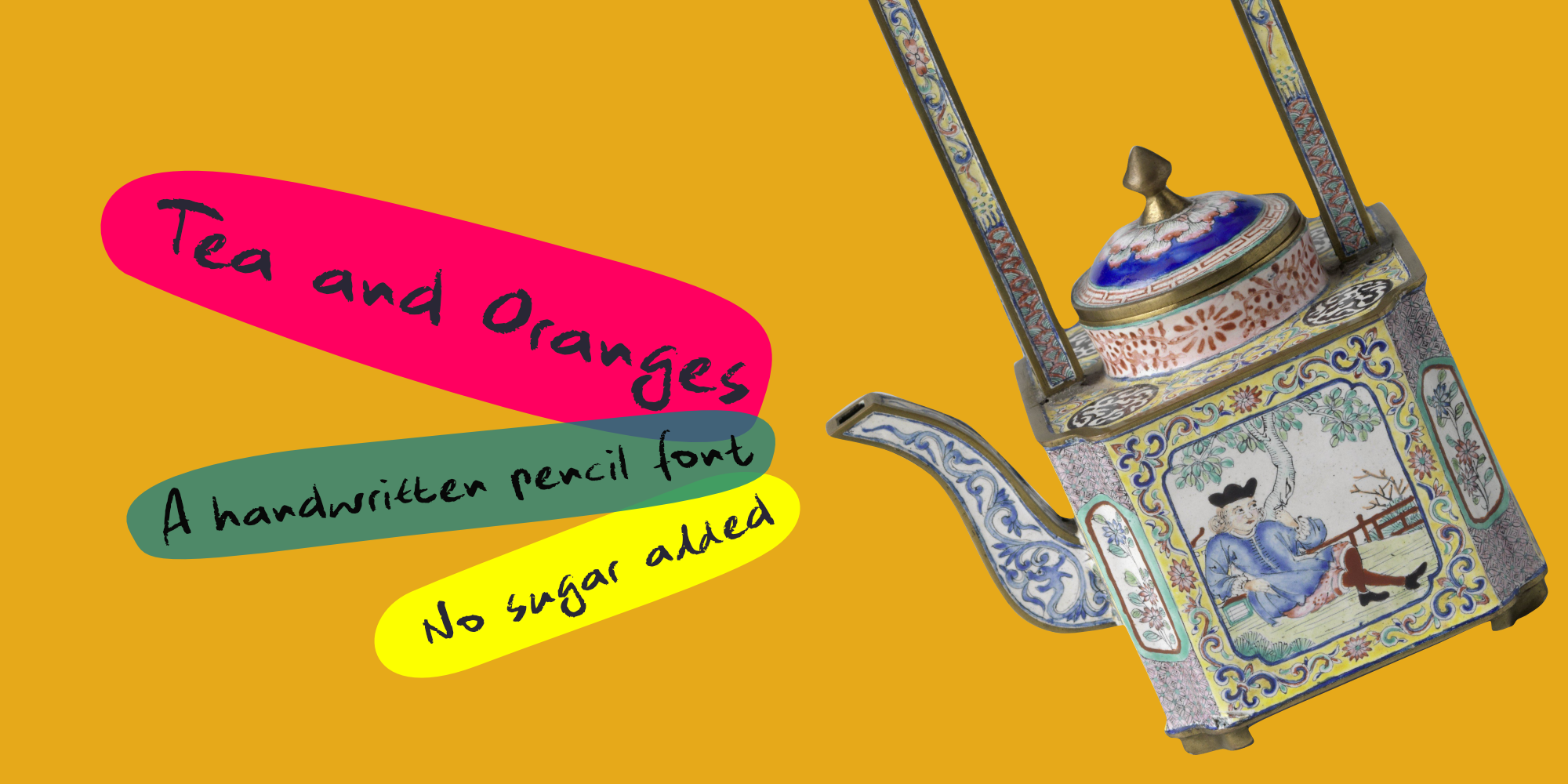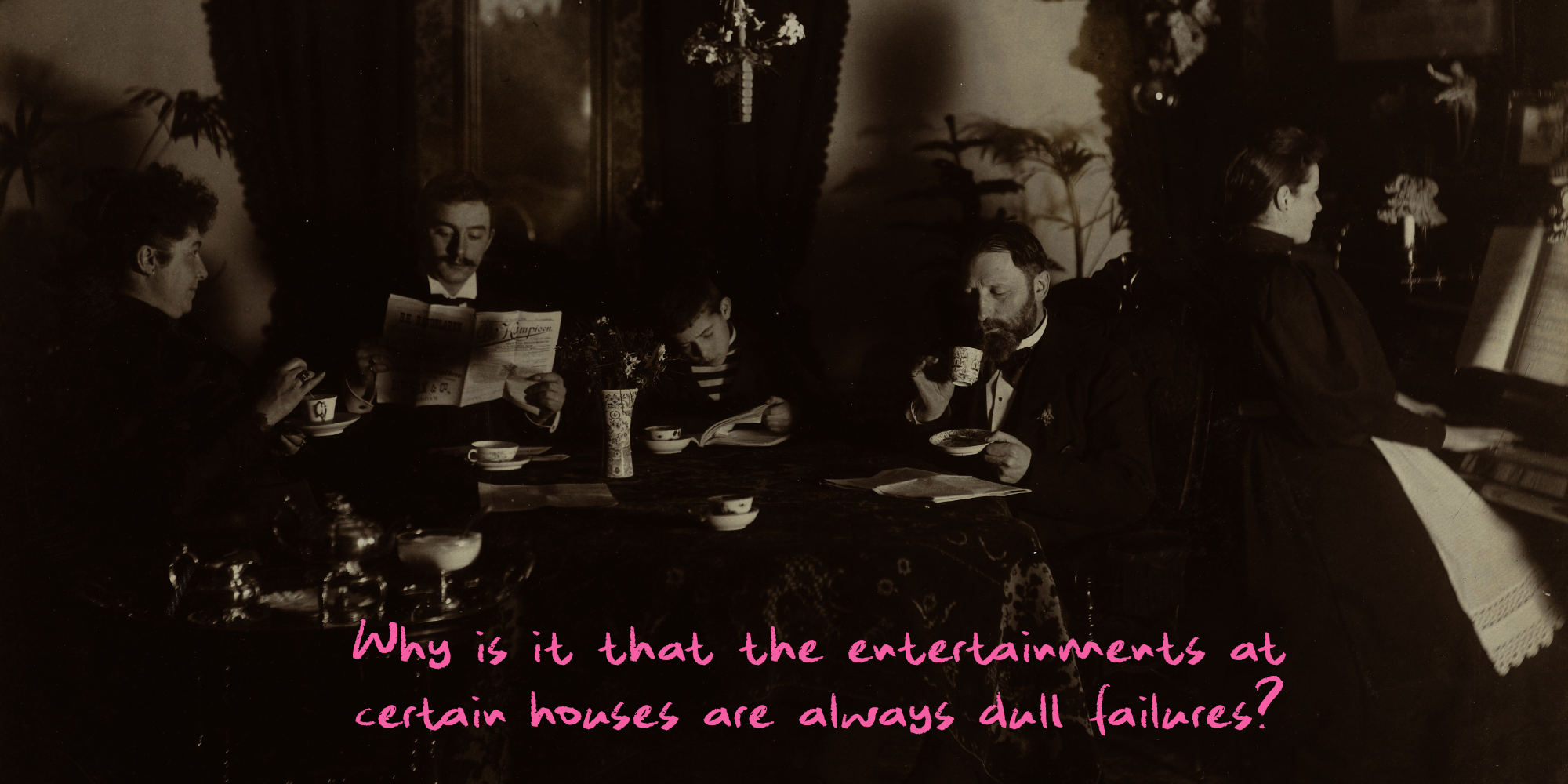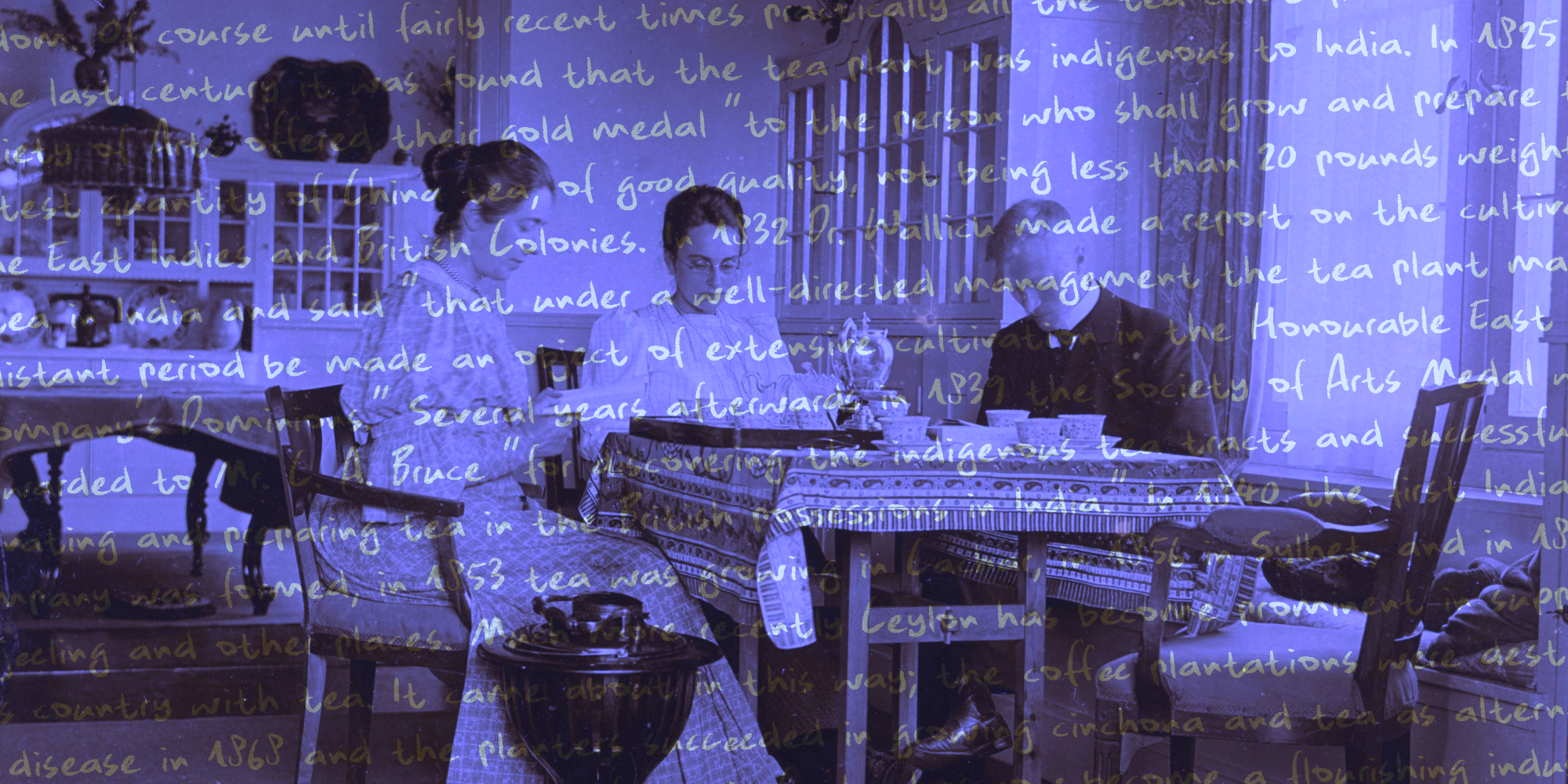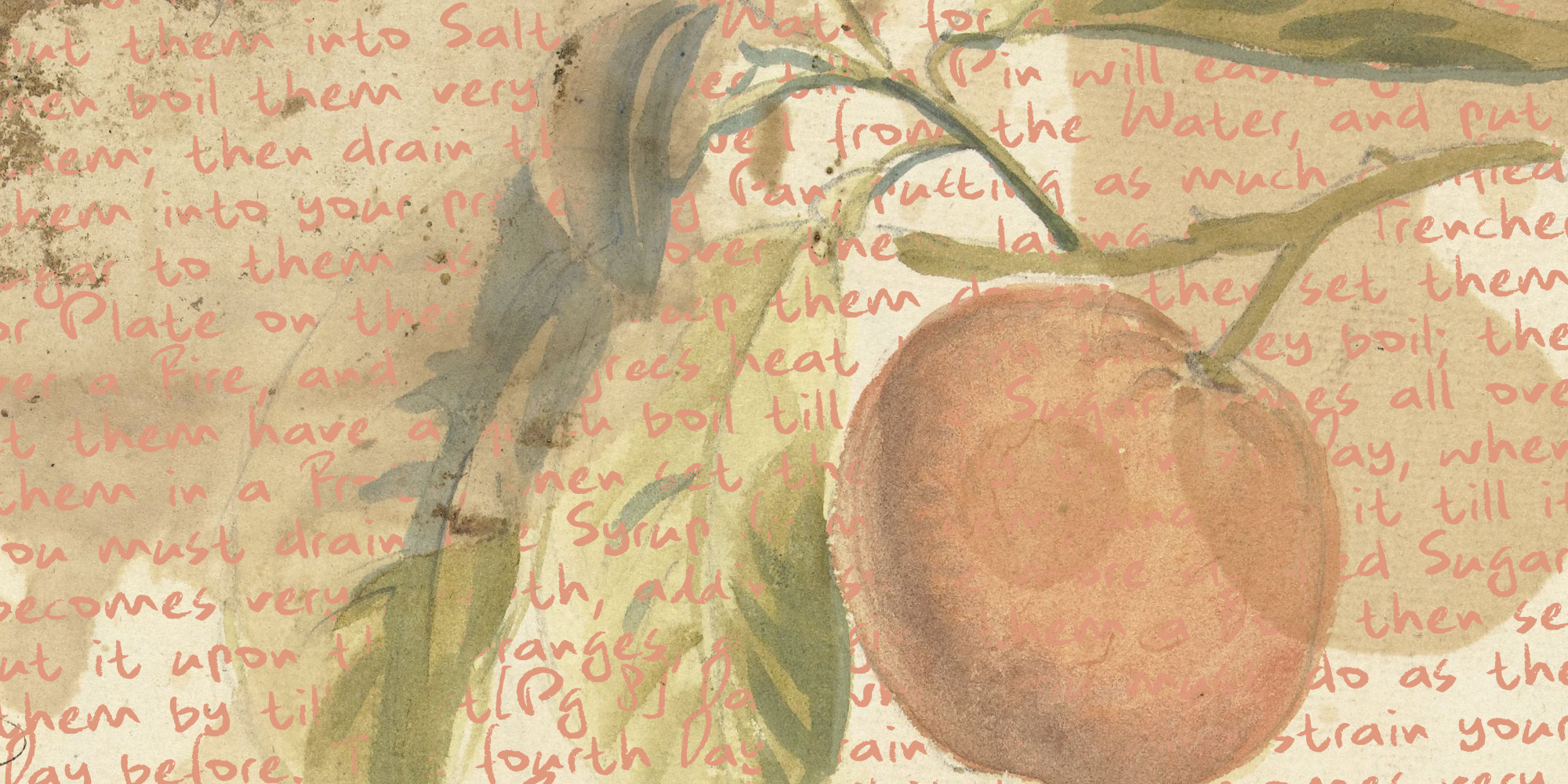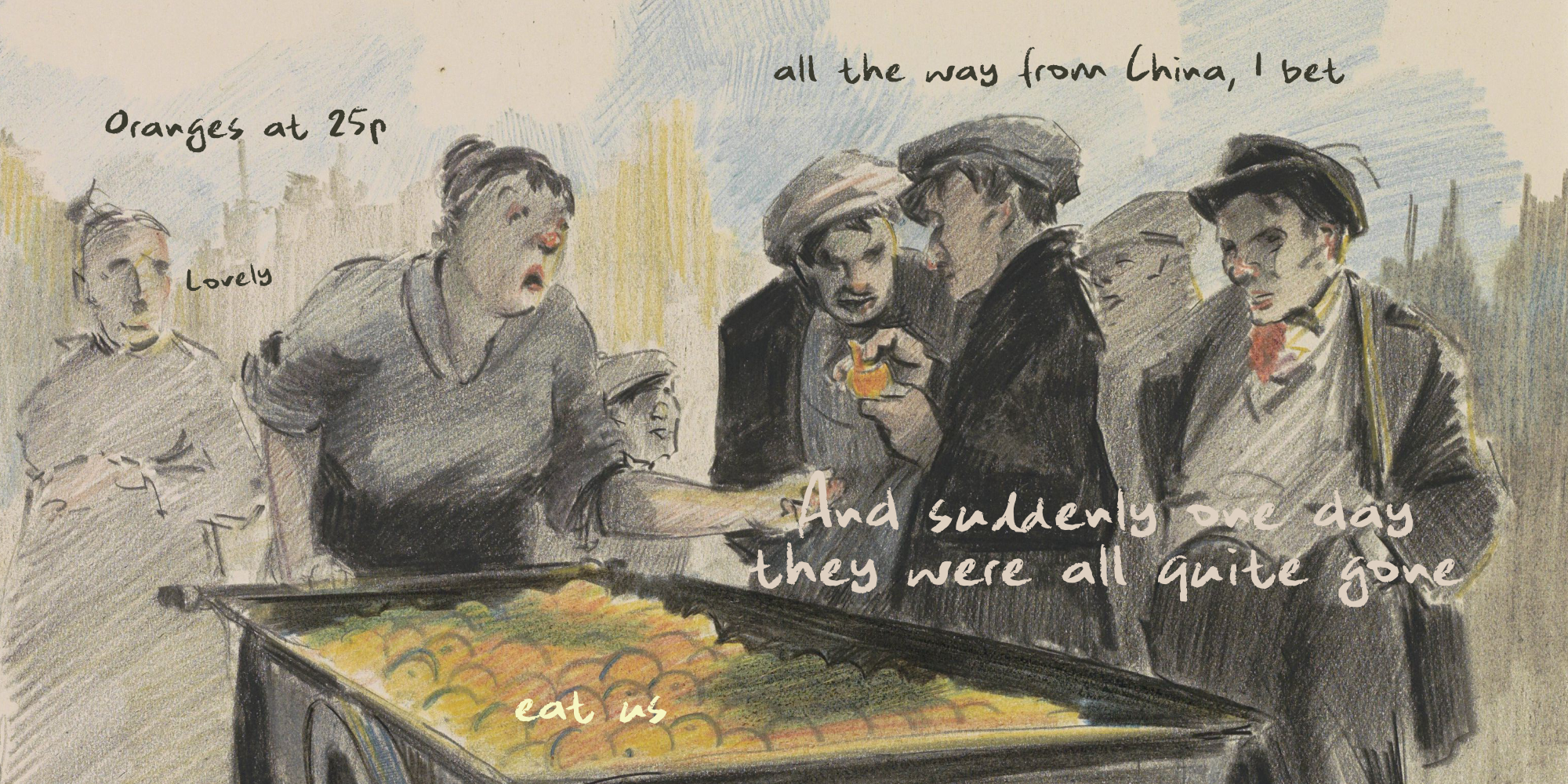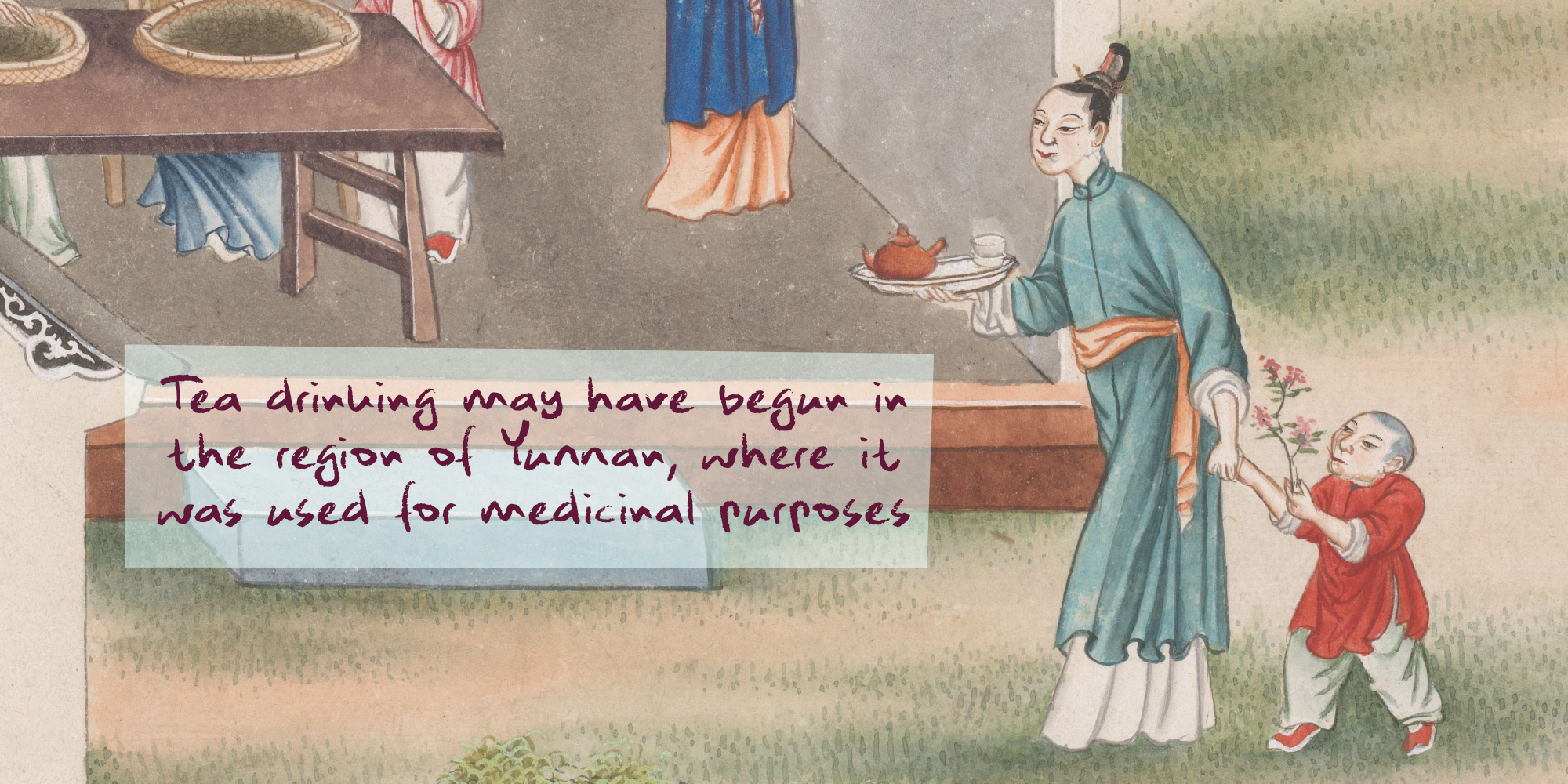
Tea And Oranges (1 font)
Tea And Oranges is a a handwritten ‘pencil’ style font. It comes with impressive language support and a bunch of Discretionary ligatures for you to play with!